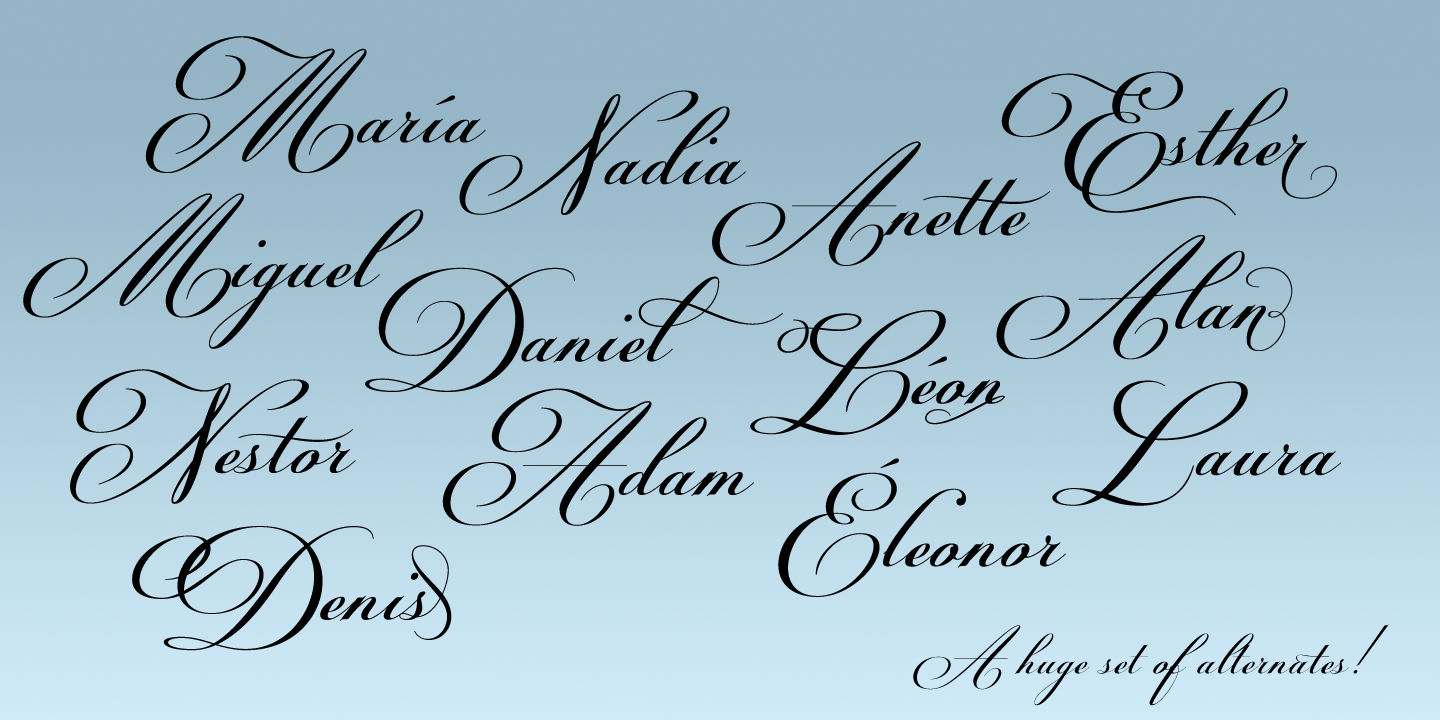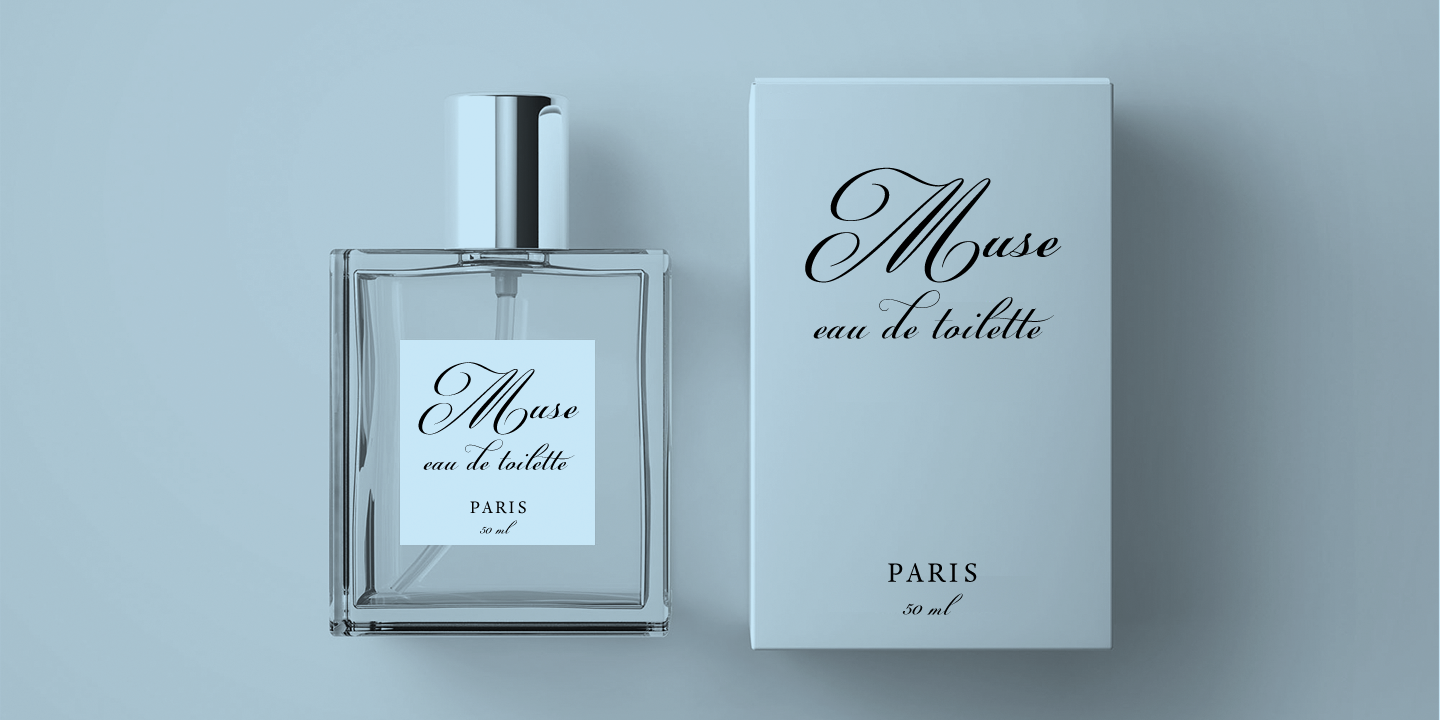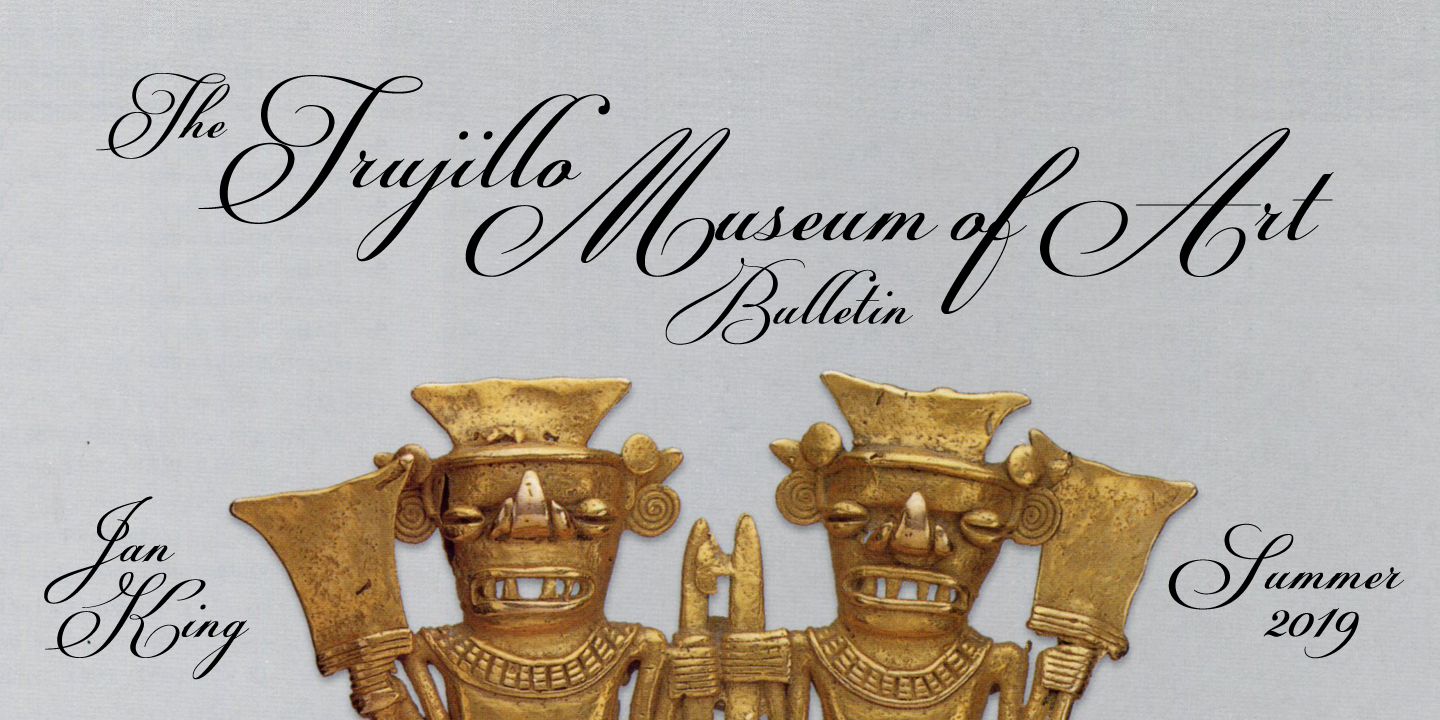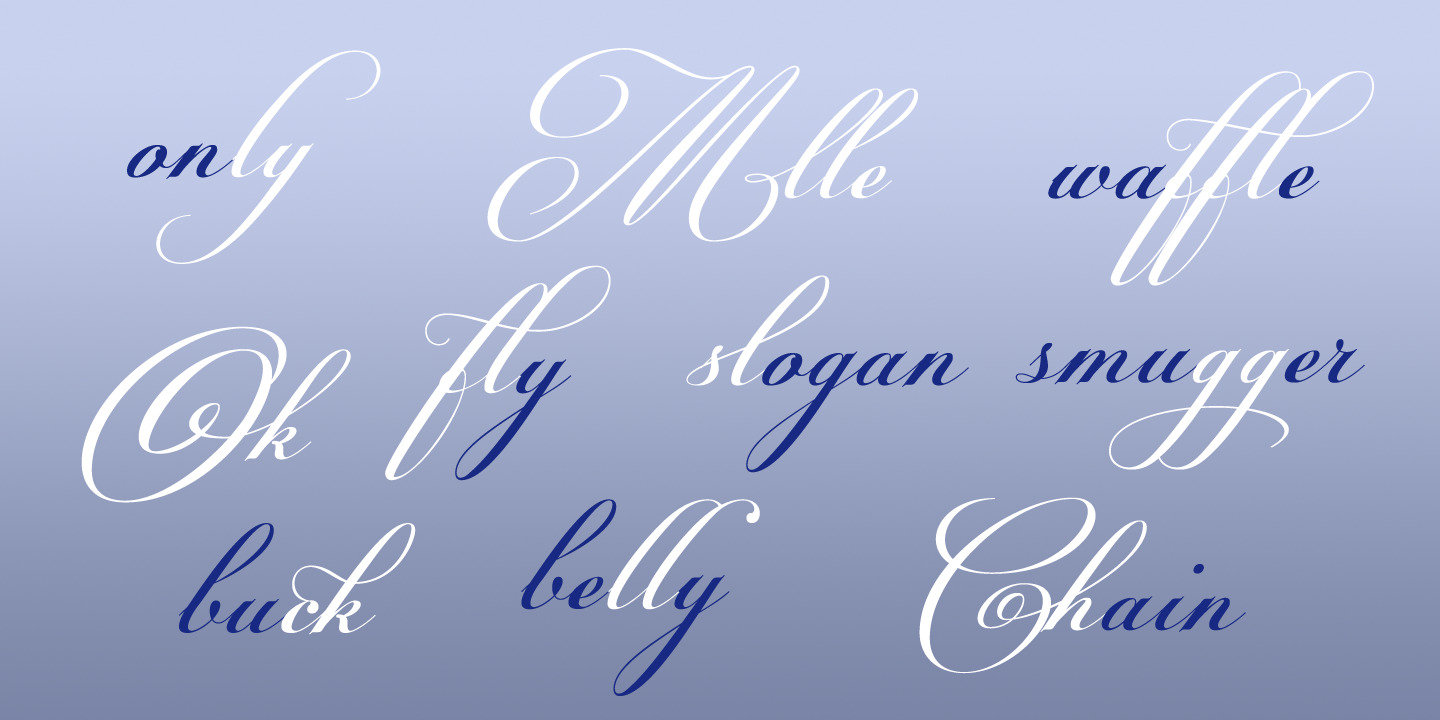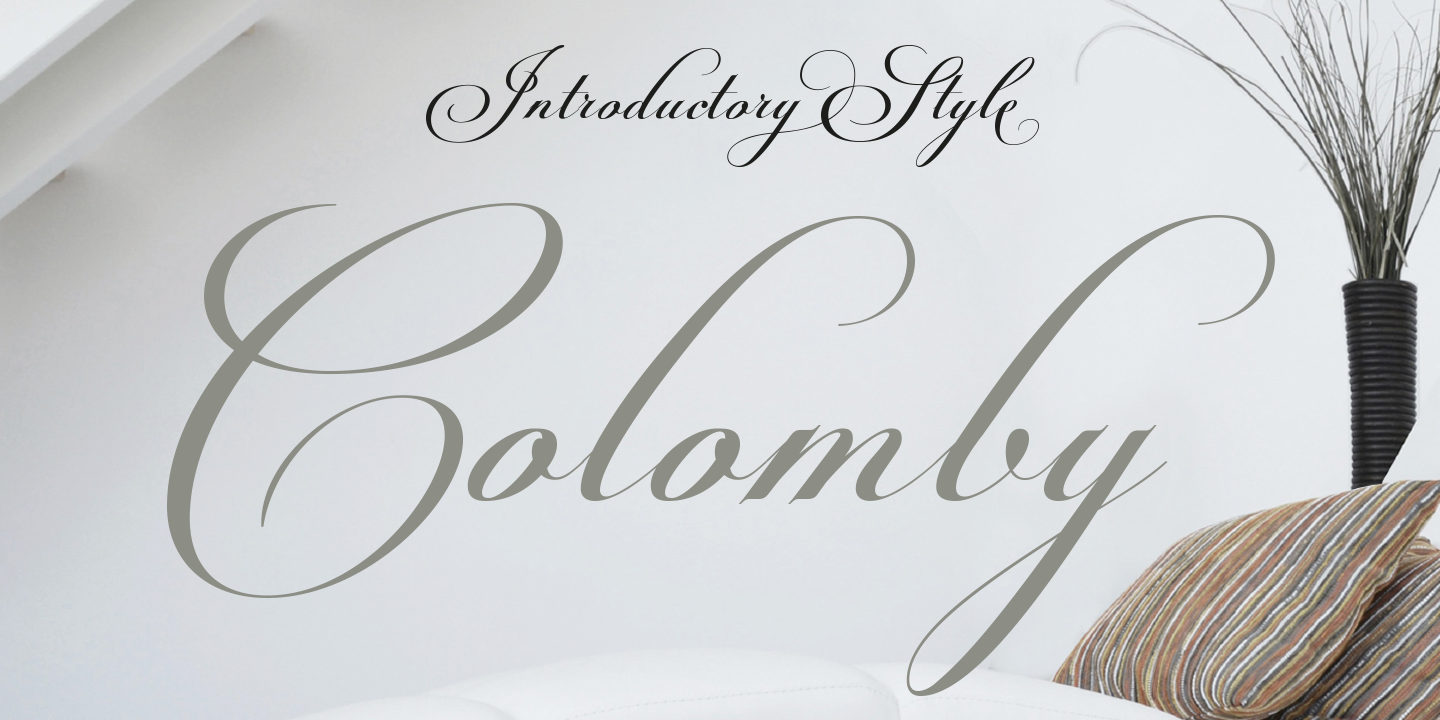
Colomby
The Legacy of Copperplate Style
The copperplate or English round handwriting style has a great inclination with extensive extensions of ascending and descenders strokes, widely ornate. This traditional style evokes a sense of prestige and formal elegance found in historical documents.
Rooted in 18th-Century Manuscripts
Colomby is a contemporary calligraphic font with classical roots, based on an 18th-century English manuscript. It captures the sophistication of the golden age of penmanship, translating it into a digital format that retains the warmth of the human hand.
Dramatic Ascenders & High Readability
It is carefully designed, with a special emphasis on the connection of the letters, with high ascenders to give rise to the ornaments of the different letters. Despite its intricate detailing, there is a special search for high readability, making it suitable not just for display, but for conveying clear messages with style.